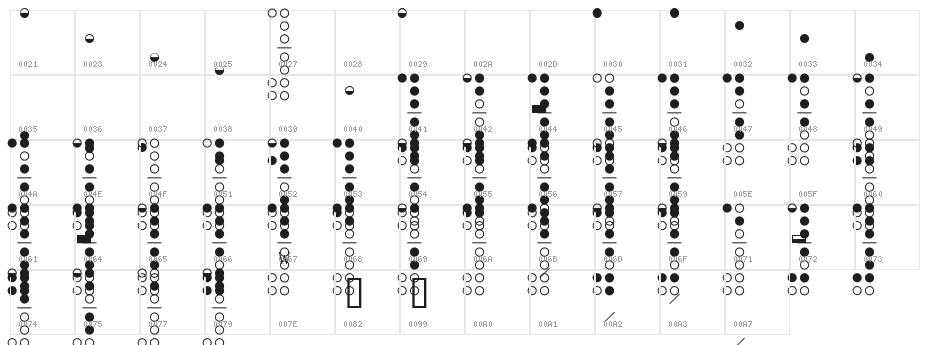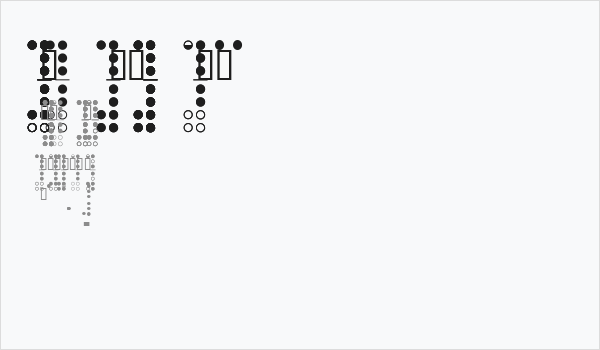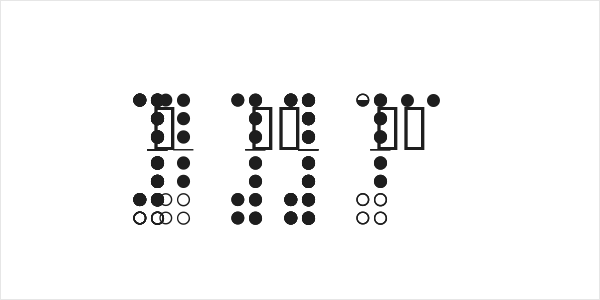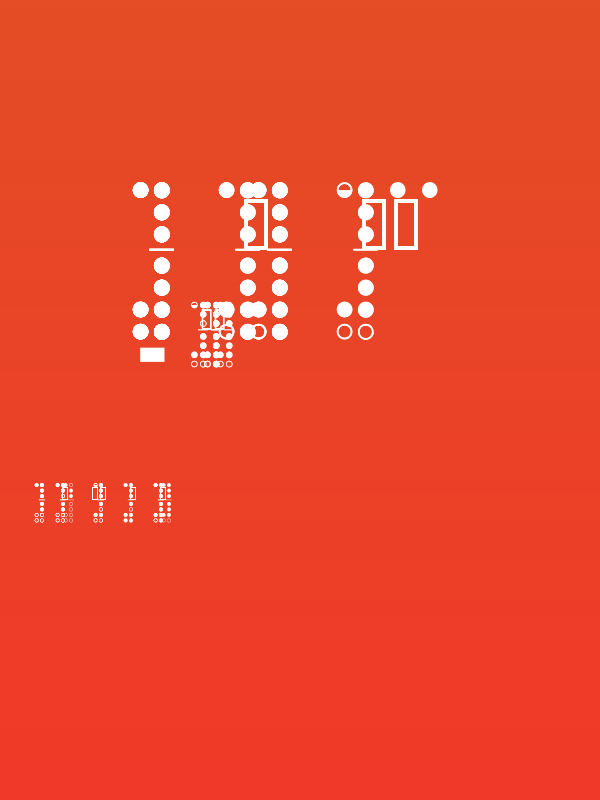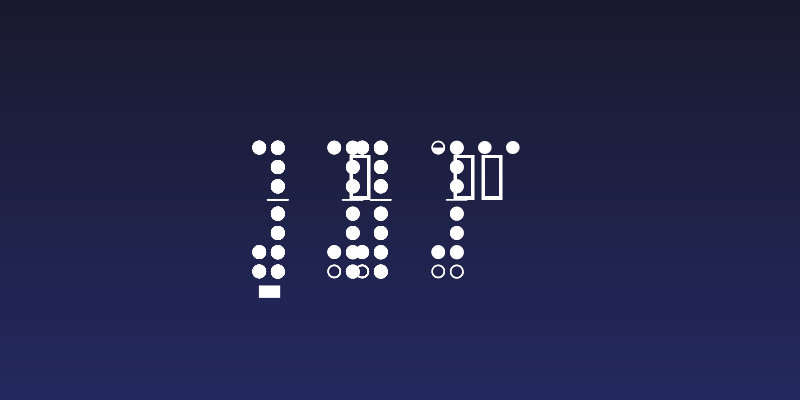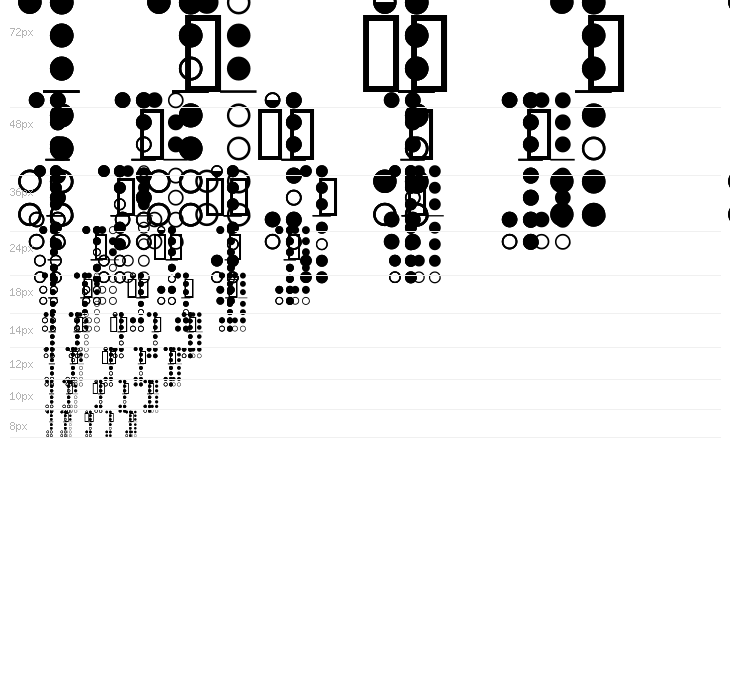
Woodwind Tablature Rec1.1 Font
Woodwind Tablature Rec1.1 Description
This is not a standard font; it appears to be a woodwind tablature notation system using geometric shapes and lines to represent fingerings or notes rather than typographic characters.
| Use Case | Musical notation, not text. |
| Proposed Projects | Musical notation for woodwind instruments, educational materials for music students. |